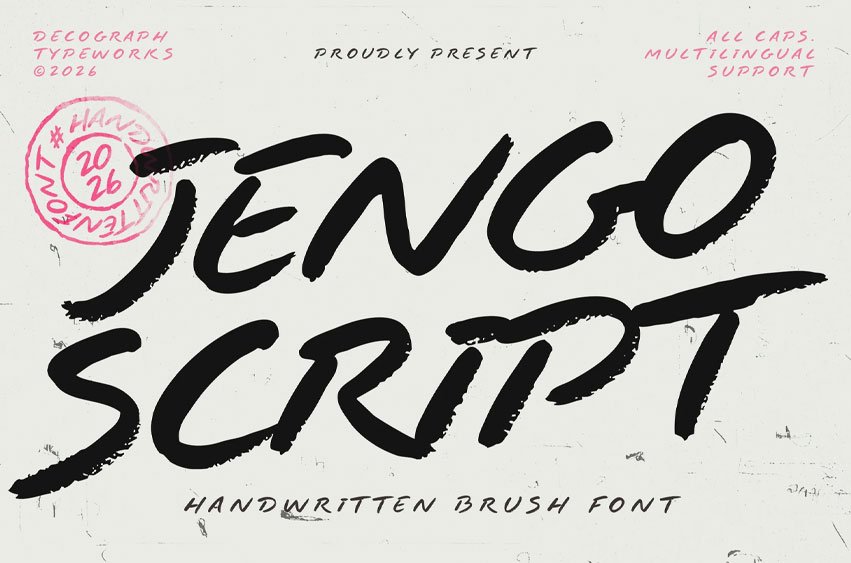
Jengo Script Font is a bold handwritten brush font with an energetic and naturally flowing character.
Featuring expressive dry-brush textures, confident strokes, and casual script rhythm, it delivers a stylish balance between modern elegance and relaxed personality.